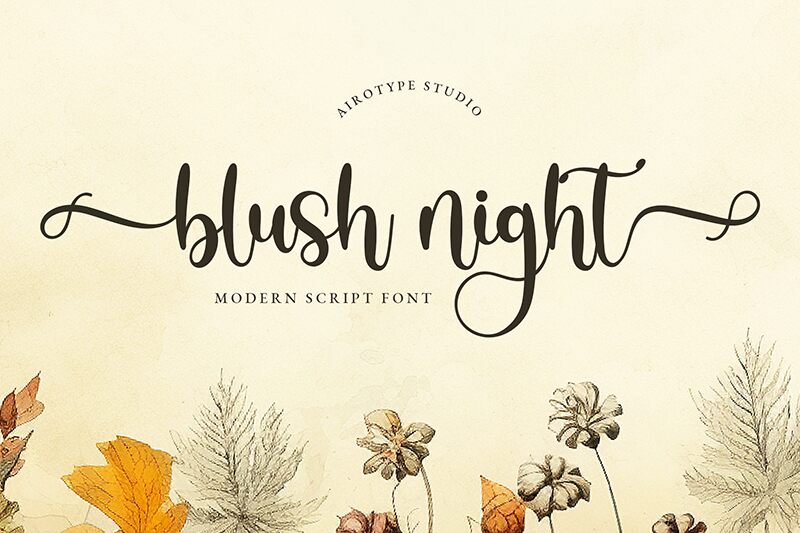
Blush Night
Blush Night font by Airotype Studio is an elegant and modern script font that captures attention with its flowing cursive style. The brush font’s expressive curves give it a fashionable and sophisticated appearance, making it especially suitable for branding or invitations. Enjoy using the free offering for several of your professional or casual projects.
Among the uses for Blush Night are designing wedding invitations, personal greeting cards, inspirational quotes, posters, social media posts, product packaging, branding logos, movie posters etc. If you want to make a strong impression on your audience, use this luxurious typeface in all of your visual communications.